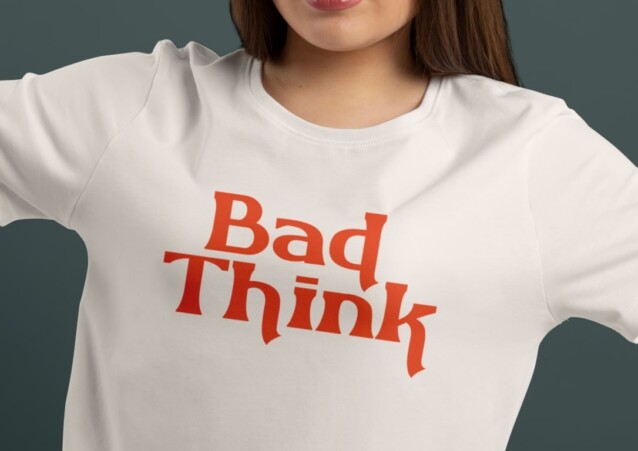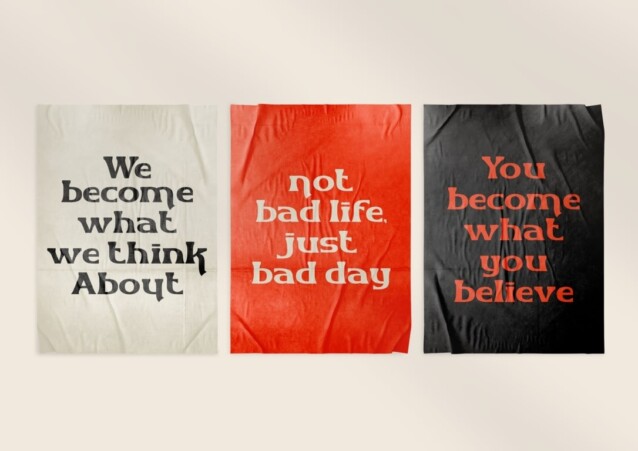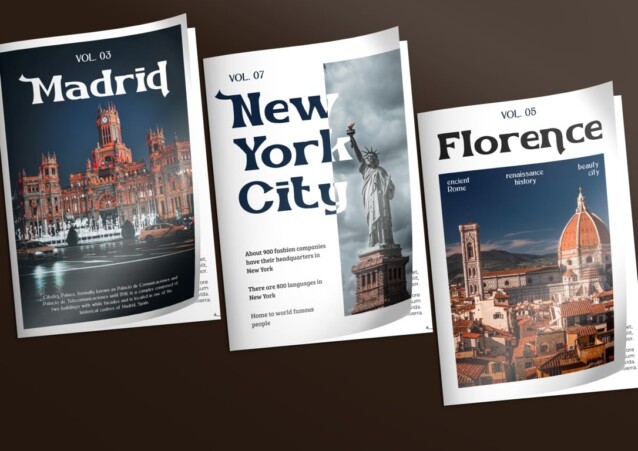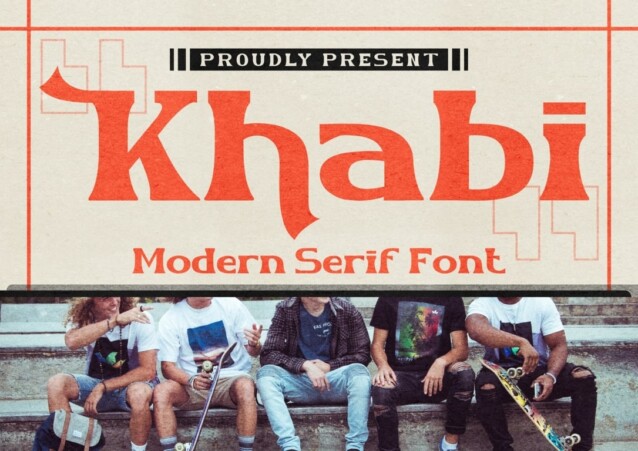
Khabi Font is a amazing serif font with beautiful ligatures, tons of alternative glyphs and multilingual support. Its bold curves exude a groovy 70s vibe, while the serifs add a touch of tradition. Khabi perfectly complements vintage mood boards and logos. It features distinct lowercase and uppercase letters,with numbers, punctuation marks, and multilingual characters.